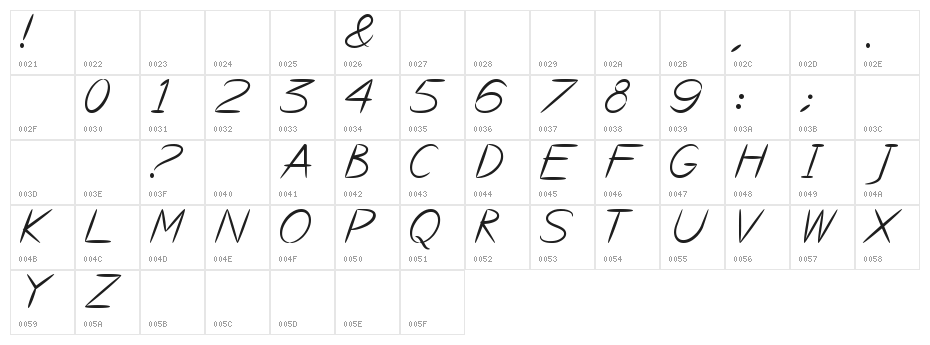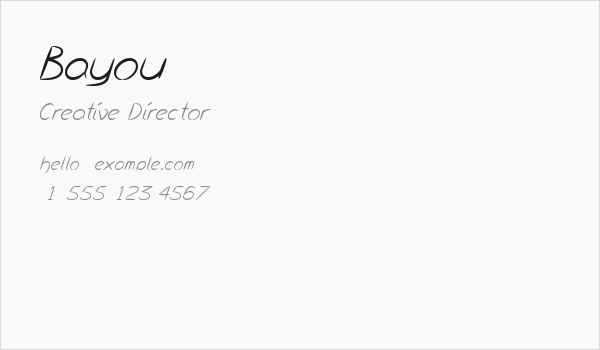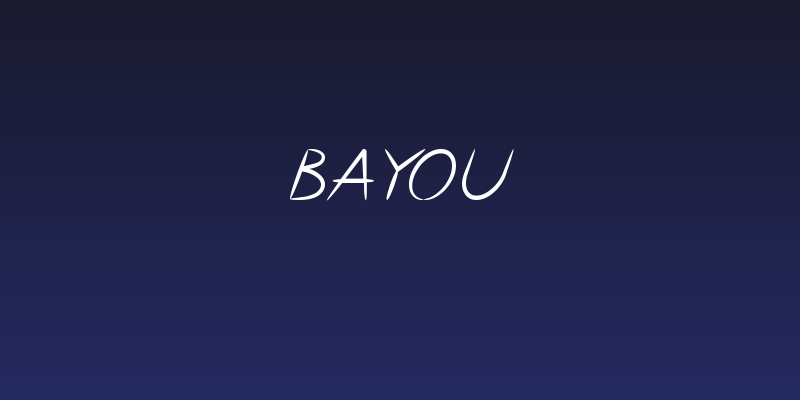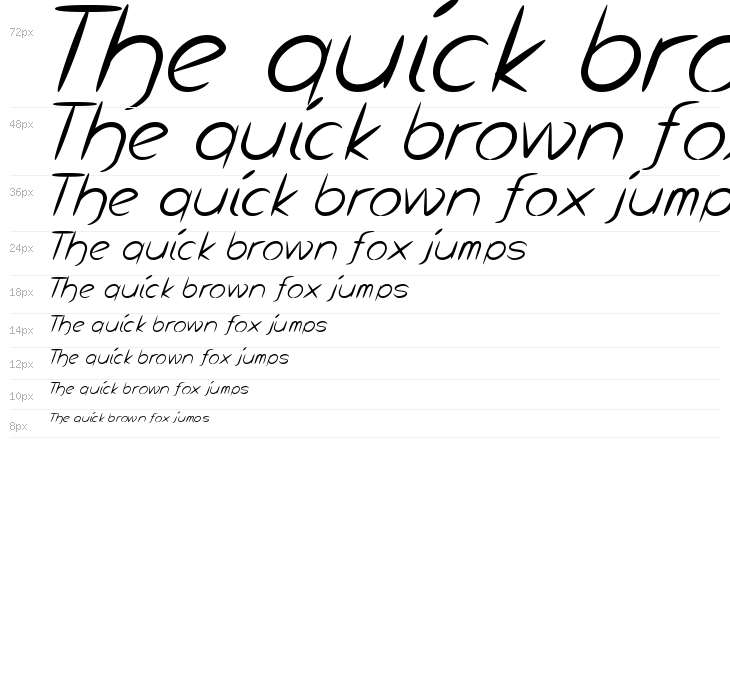
Bayou Font
Bayou Description
This font features a fluid and dynamic script style, characterized by its elegant and flowing letterforms. The strokes are smooth and slightly slanted, giving it a handwritten appearance. The uppercase letters are distinct with a slight flourish, while the lowercase letters maintain a consistent rhythm and balance. The numerals are clear and legible, complementing the overall script style. Special characters like the ampersand and exclamation mark are designed with the same fluidity, enhancing the cohesive look of the font.
| Use Case | Logos, Invitations, Greeting Cards |
| Proposed Projects | Ideal for invitations, greeting cards, branding, and logo design where a personal touch is desired. |